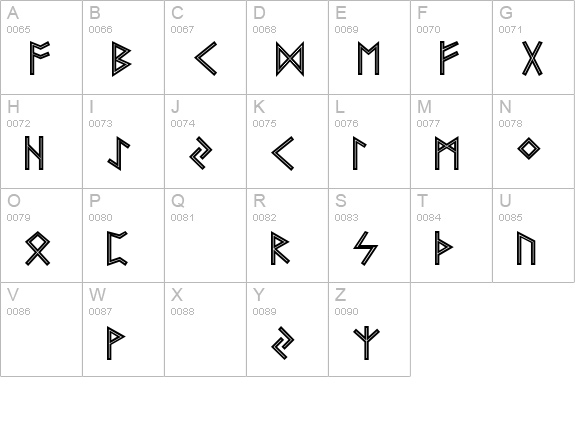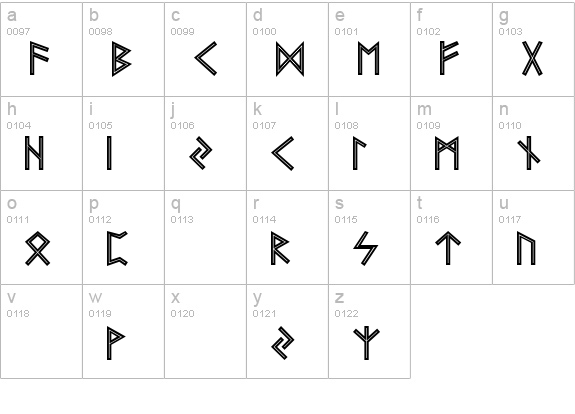
Futhark AOE Inline Font Details
Futhark AOE Inline font is a stunning display typeface that exudes a sense of timeless sophistication and elegance. With its intricate inline design and unique letterforms, this font is sure to make a bold statement in any design project. The Futhark AOE Inline font is perfect for headlines, titles, logos, and other creative projects that require a touch of artistic flair. What sets this font apart is its seamless blend of traditional and modern elements, creating a harmonious balance between classic typography and contemporary design trends. The Futhark AOE Inline font is versatile and can be used in a variety of contexts, adding a touch of sophistication and style to any project. Best of all, the Futhark AOE Inline font is available for free download at FontsMarket.com, making it easily accessible to designers and creatives looking to elevate their work with a touch of elegance and flair. Download this exquisite font today and unleash your creativity with Futhark AOE Inline!